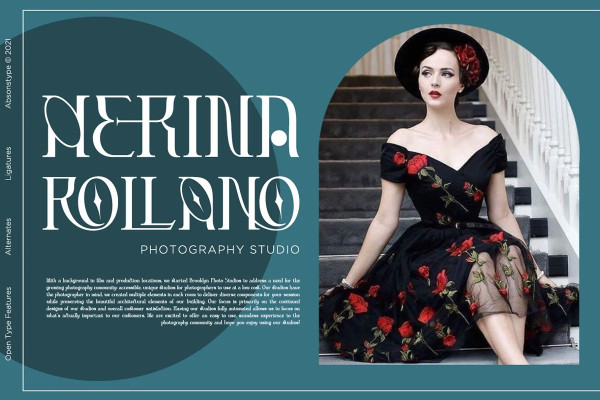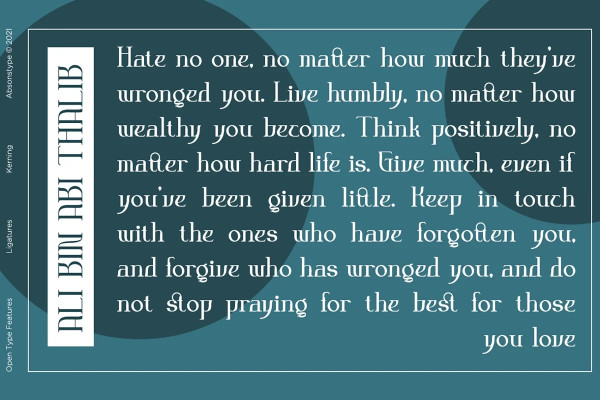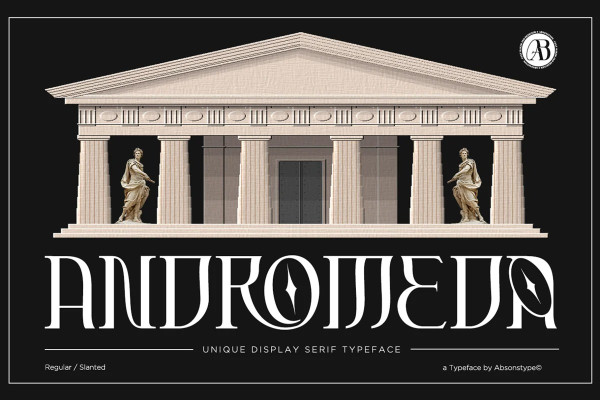
Andromeda Font
Andromeda Font, a display font with elegant, classic & stylish curves. It’s romantic, classy and modern all wrapped into one, and surely can not be missed in your font collection.